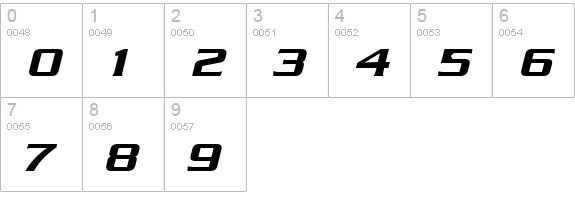
Chaney Wide BoldItalic Font Details
Chaney Wide BoldItalic is a distinctive, extended-width variant in the Chaney typeface family \xE2\x80\x94 well suited to design and typography projects.
The Chaney Wide BoldItalic font is a bold and stylish typeface that exudes confidence and modernity. Its wide, geometric design gives it a strong presence on the page, making it perfect for headlines, titles, and branding projects. The bold italic style adds a touch of elegance and flair, making your text stand out with a unique and eye-catching look. What's even better is that the Chaney Wide BoldItalic font is available for free download at FontsMarket.com. This means you can easily access this versatile and striking typeface to enhance your design projects without any cost. Whether you're working on posters, logos, or social media graphics, the Chaney Wide BoldItalic font is a fantastic choice that will help you make a bold statement with your text. Download it today and elevate your designs with this exceptional font.